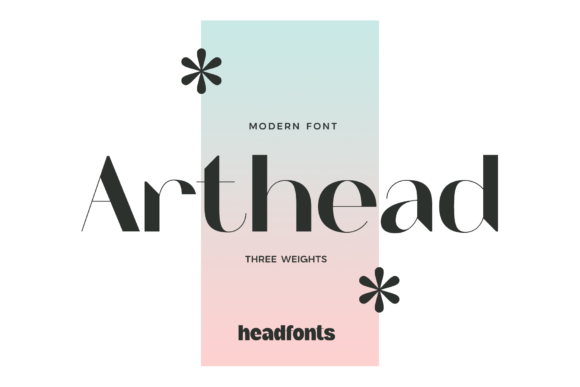
The Elusive Font: My Journey with Arthead
I still remember the design project that had me stuck in a font loop. My client wanted a modern, elegant look for their branding, but I was struggling to find the perfect sans serif font. That’s when I stumbled upon Arthead, and it was love at first sight! 💕 In this article, I’ll share my experience with this versatile font, its features, and how to make the most of it in your designs.
An Honest Review of Arthead
What I Love About Arthead
- ✨ Elegant and assertive design that elevates any project
- ✅ Incredibly versatile, suitable for a wide range of designs
- 🔥 Perfect for headlines, titles, and short paragraphs
- 👍 Highly legible, even at smaller font sizes
While Arthead is an excellent font, it’s not perfect. Here are a few things to keep in mind:
- 🤔 Limited availability of stylistic alternates, which might limit its use in certain designs
- ⚠️ Not ideal for body text or long paragraphs, as it can be a bit too bold
The Story Behind Arthead
Arthead was designed with the goal of creating a modern, elegant sans serif font that would be versatile and highly legible. The designer aimed to craft a font that would be perfect for headlines, titles, and short paragraphs, while also being easy to read. With its clean lines and assertive design, Arthead has become a popular choice among designers.
Q: What makes Arthead unique?
A: Arthead’s unique blend of elegance and assertiveness sets it apart from other sans serif fonts.
Q: Can I use Arthead for body text?
A: While Arthead is highly legible, it’s not ideal for long paragraphs or body text. It’s best suited for headlines, titles, and short paragraphs.
Q: Does Arthead support OpenType features?
A: Yes, Arthead supports OpenType features, including ligatures and stylistic alternates, which can add visual interest to your designs.
Q: Is Arthead suitable for digital designs?
A: Absolutely! Arthead’s clean design and high legibility make it perfect for digital designs, including web and mobile applications.